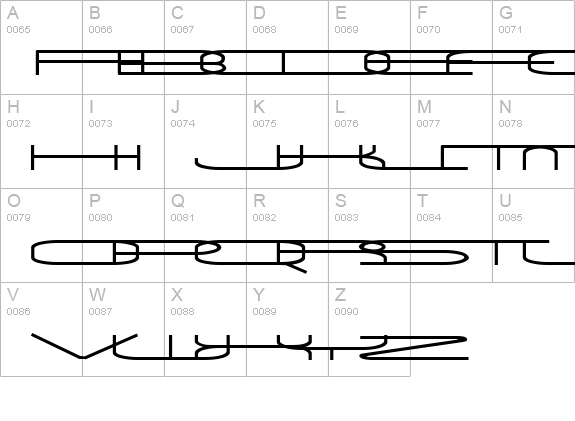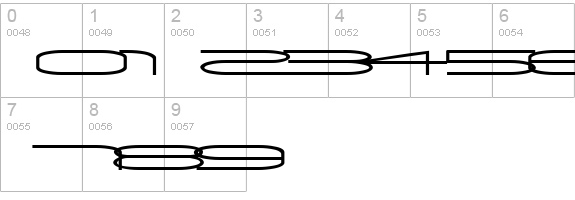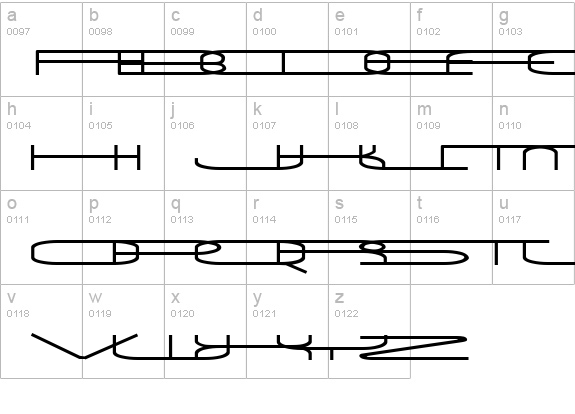
Univox Atom Light Font Details
Univox Atom Light is a refined, elegant variant in the Univox typeface family \xE2\x80\x94 well suited to elegant body text, refined sub-headings, and luxury branding.
Univox Atom Light font is a stunning typeface that embodies elegance and modernity. With its sleek and sophisticated design, it effortlessly catches the eye and adds a touch of refinement to any project. This font features clean lines and a minimalist aesthetic that exudes simplicity and clarity. Its thin strokes and perfectly balanced letterforms create a harmonious and legible composition, making it ideal for a wide range of design applications. One of the most remarkable aspects of Univox Atom Light font is that it is available for free. Yes, you read that right! This exceptional font can be downloaded at no cost from FontsMarket.com, one of the leading platforms for high-quality and diverse font collections. Whether you are a professional designer, a student, or simply someone with a passion for typography, you can freely access this captivating font and incorporate it into your creative endeavors. Its versatility allows it to seamlessly fit into various design projects, such as logos, branding materials, headlines, posters, websites, and more. Univox Atom Light font captivates with its timeless appeal and modern edge, making it the perfect choice for those seeking a font that effortlessly combines classic elegance with contemporary flair. With its availability as a free download, there is no reason to miss out on the opportunity to enhance your designs with this exceptional typeface. So head over to FontsMarket.com and get your hands on Univox Atom Light font today!